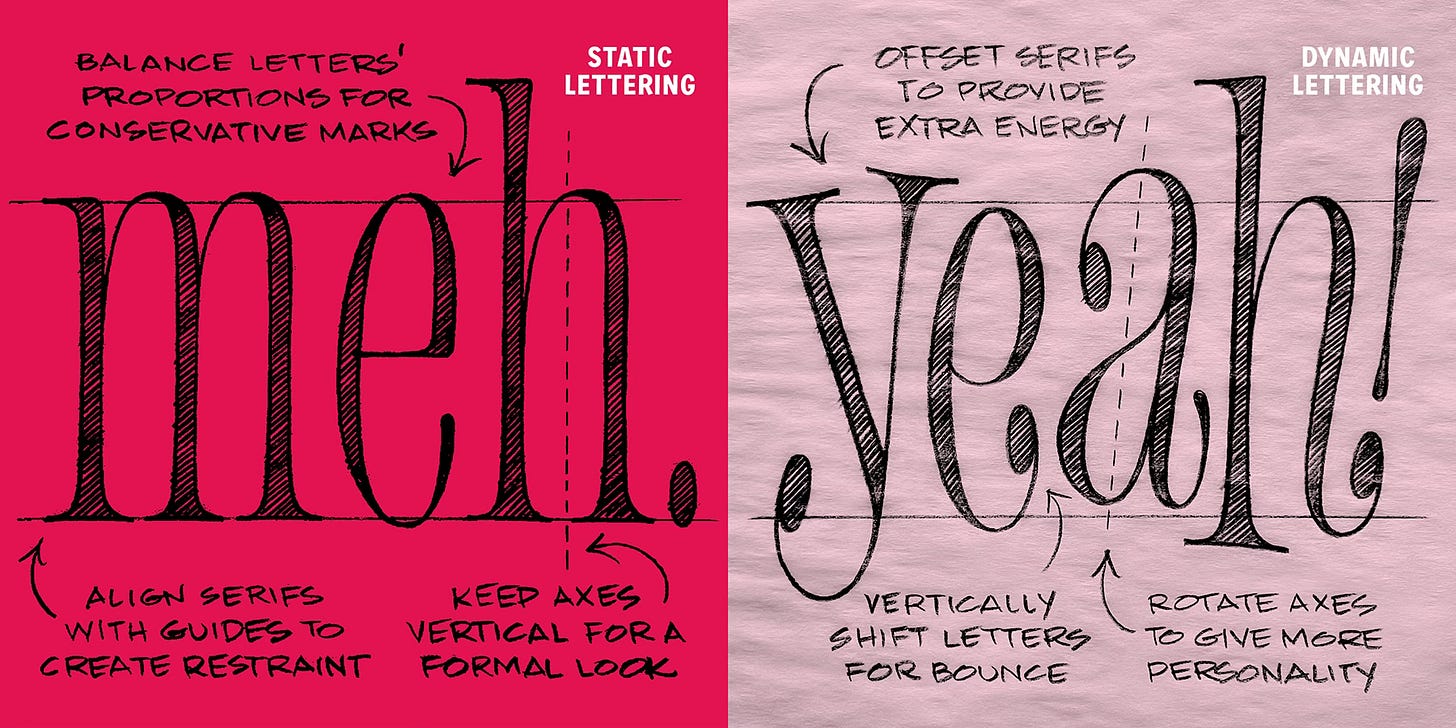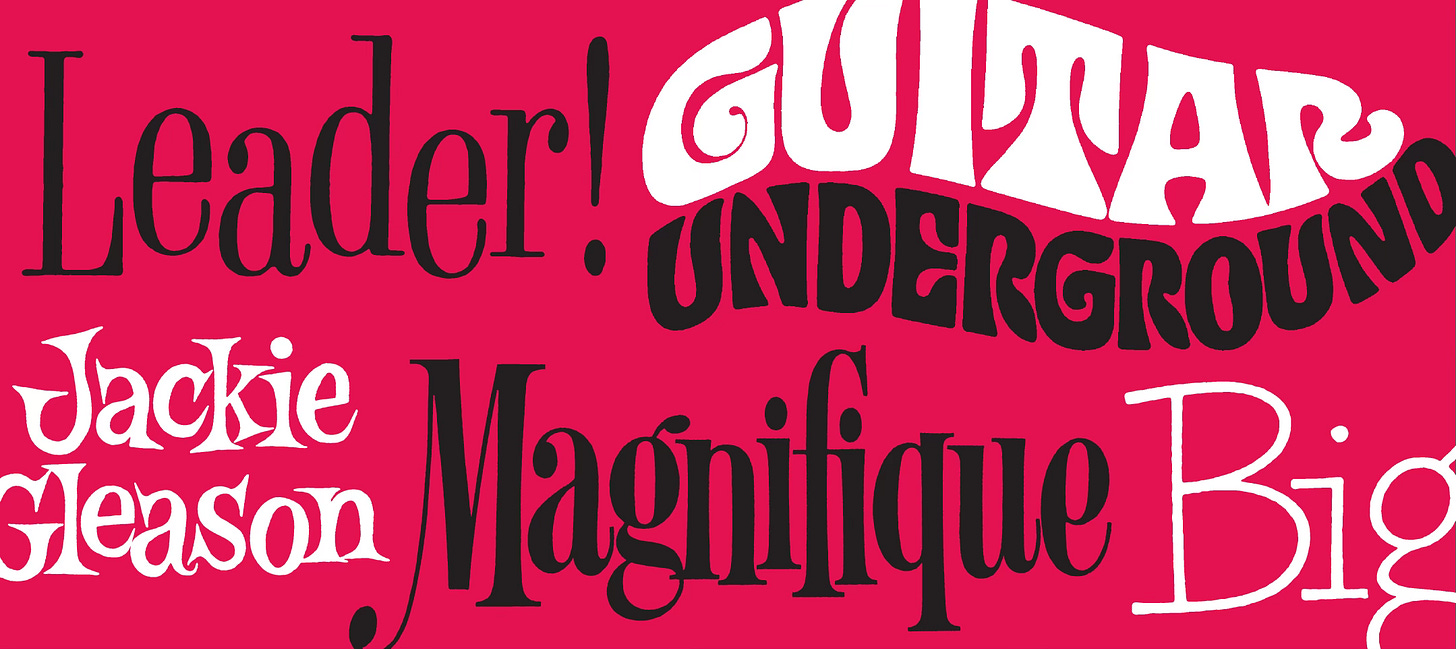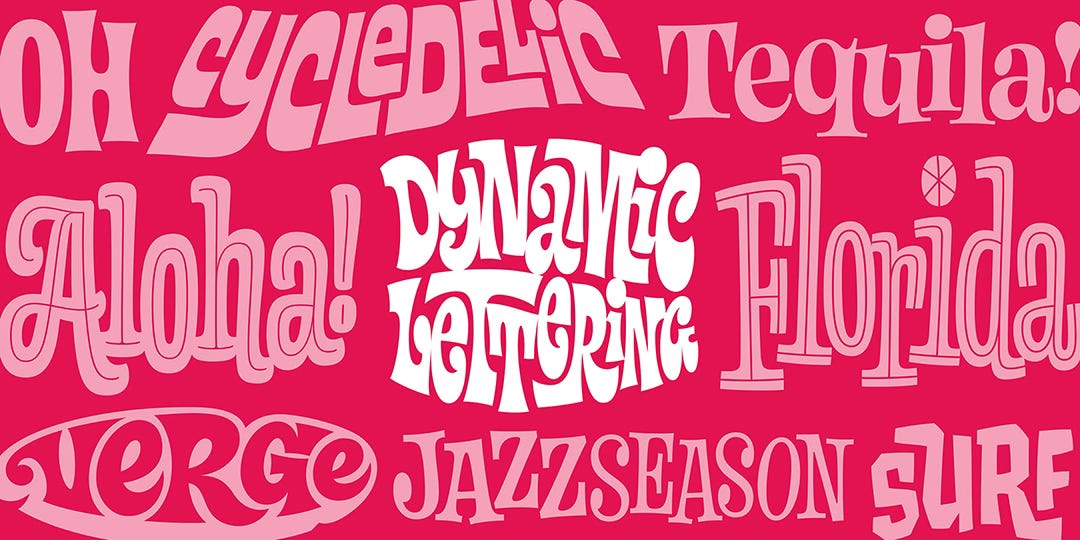
This Saturday: Dynamic Lettering!
If you’re looking to inject some life into your letterforms, now’s your chance. Our online Dynamic Lettering workshop is going down this Saturday, August 8, 2026. We won’t run this class again for another year or two, so if it’s been on your "one of these days" list, consider this your sign to join us.
Just a few of the styles you’ll learn to create in this hands-on workshop
Spend a few hours with us learning how to build lettering that's full of rhythm and personality. We'll break down animated serif and sans serif styles—as well as interlocking layouts—into approachable drawing methods that you can apply to your own work, whether you're lettering for fun or for clients.
We’ll show you how to transform static styles into eye-catching dynamic lettering